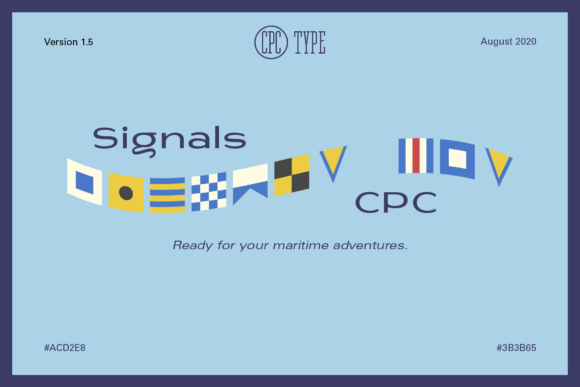
Embark on a typographic voyage with Signals CPC Font, a chromatic symphony that echoes the rich heritage of maritime communication. Immerse yourself in a world of visual intrigue, where vibrant hues dance across the page, reminiscent of the colorful flags that once conveyed messages across vast oceans.
Picture yourself as a modern-day seafarer, navigating the digital waves with a font that reflects your adventurous spirit. Communicate your ideas with a splash of color, capturing the attention of your audience with every word you type. Whether you're a designer seeking to create captivating visuals, a brand seeking to establish a unique identity, or simply an enthusiast of the sea, Signals CPC Font is your perfect companion.
Journey through a sea of creative possibilities, transforming ordinary text into extraordinary visual spectacles. Let your imagination set sail as you craft designs that evoke the charm and elegance of classic maritime signal flags. Imagine your designs adorned with vibrant hues, each letter a brushstroke of color against the digital canvas.
With Signals CPC Font, you're not just downloading a font; you're embarking on an artistic odyssey. Let your creativity flourish, and set your designs apart from the ordinary. Dive into the depths of your imagination and discover a world of endless typographic possibilities. Weigh anchor and hoist the sails of your creativity with Signals CPC Font, and let your designs embark on a journey of visual splendor.
Ideas for Usage:
- Embark on a creative voyage, crafting designs that mirror the allure of the maritime world.
- Dive into the depths of your imagination, and create visual masterpieces that speak to the soul.
- Let your designs set sail, capturing the essence of adventure and discovery.
- Transform ordinary text into extraordinary visual spectacles, leaving a lasting impression on your audience.
- Let your creativity flourish, and leave an indelible mark in the digital world.